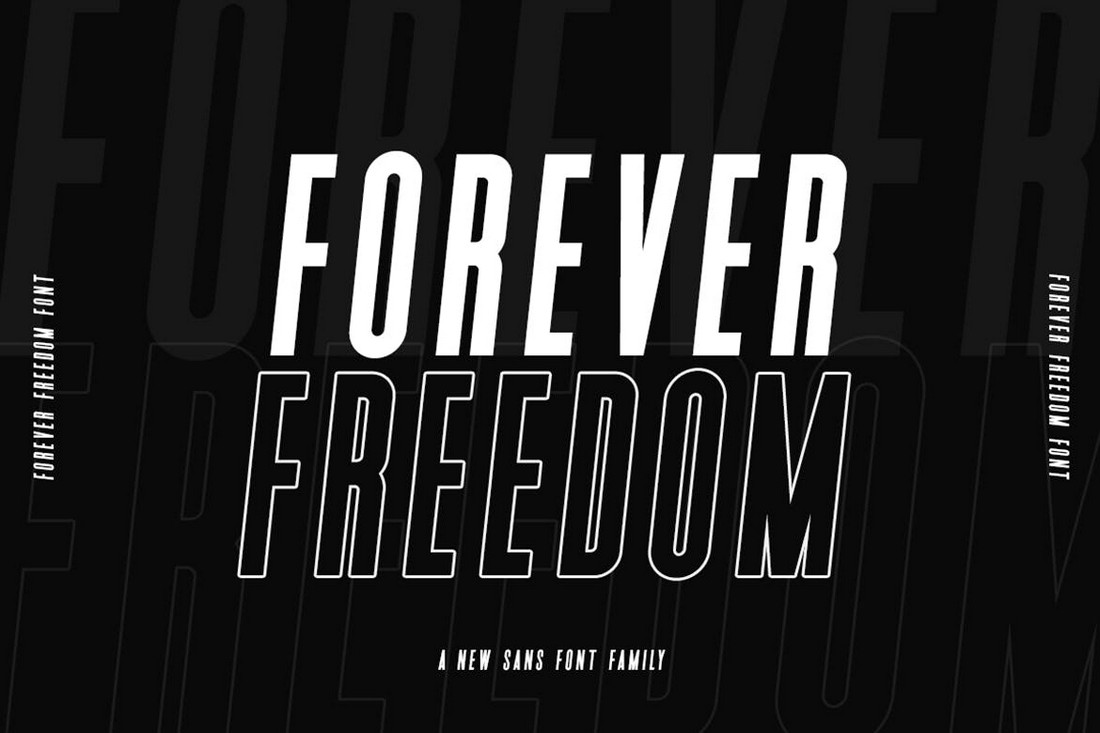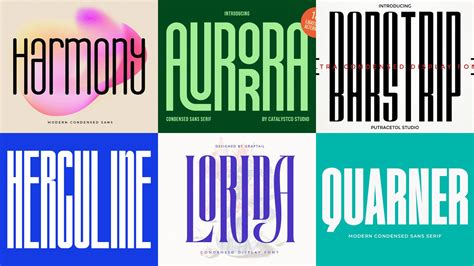
Using Narrow Fonts To Make Your Projects Stand Out In 2023
As the demand for modern, sleek design grows, so does the demand for narrow fonts. Narrow fonts are a great way to make your projects stand out in 2023, whether it's a website, a brochure, or a logo. Narrow fonts are a great choice for any project because they provide a modern, minimalist look while still providing a great readability.
What Makes Narrow Fonts So Popular?
Narrow fonts are becoming increasingly popular in the world of design. They are slim and attractive, which makes them perfect for modern designs. Narrow fonts are also great for designers who need to fit a lot of text into a small space, as they use less horizontal space than wider fonts. Narrow fonts also have a subtle, sophisticated feel that makes them perfect for creating a professional look.
Types of Narrow Fonts
There are a variety of narrow fonts available for designers to choose from. Some of the most popular narrow fonts include Sans Serif fonts, such as Arial and Helvetica, and Serif fonts, such as Times New Roman and Georgia. Narrow fonts also come in a variety of styles, from vintage to modern, so you can find one that suits your project.
How to Use Narrow Fonts
When it comes to using narrow fonts, the key is to use them sparingly. Too much narrow type can quickly become overwhelming and difficult to read. To keep your design balanced, use narrow fonts for headlines, subheadings and other short sections of text. If you're using a narrow font for body copy, make sure to give it plenty of space and use a larger font size than you would for a wider font.
Tips for Choosing the Right Narrow Font
When it comes to choosing the right narrow font for your project, there are a few key things to keep in mind. First, consider the tone of your project. Are you going for a sophisticated, modern look or a more playful, whimsical look? The font you choose should reflect the tone of your project. Second, consider the readability of the font. Is the font easy to read, both in print and on screen? Finally, make sure the font is legible at both small and large sizes.
Narrow fonts are a great way to make your projects stand out in 2023. They provide a modern, minimalist look that is perfect for modern designs. Narrow fonts also provide great readability, making them perfect for headlines, subheadings and other short sections of text. When choosing a narrow font for your project, consider the tone of your project, the readability of the font, and the legibility of the font at both small and large sizes.